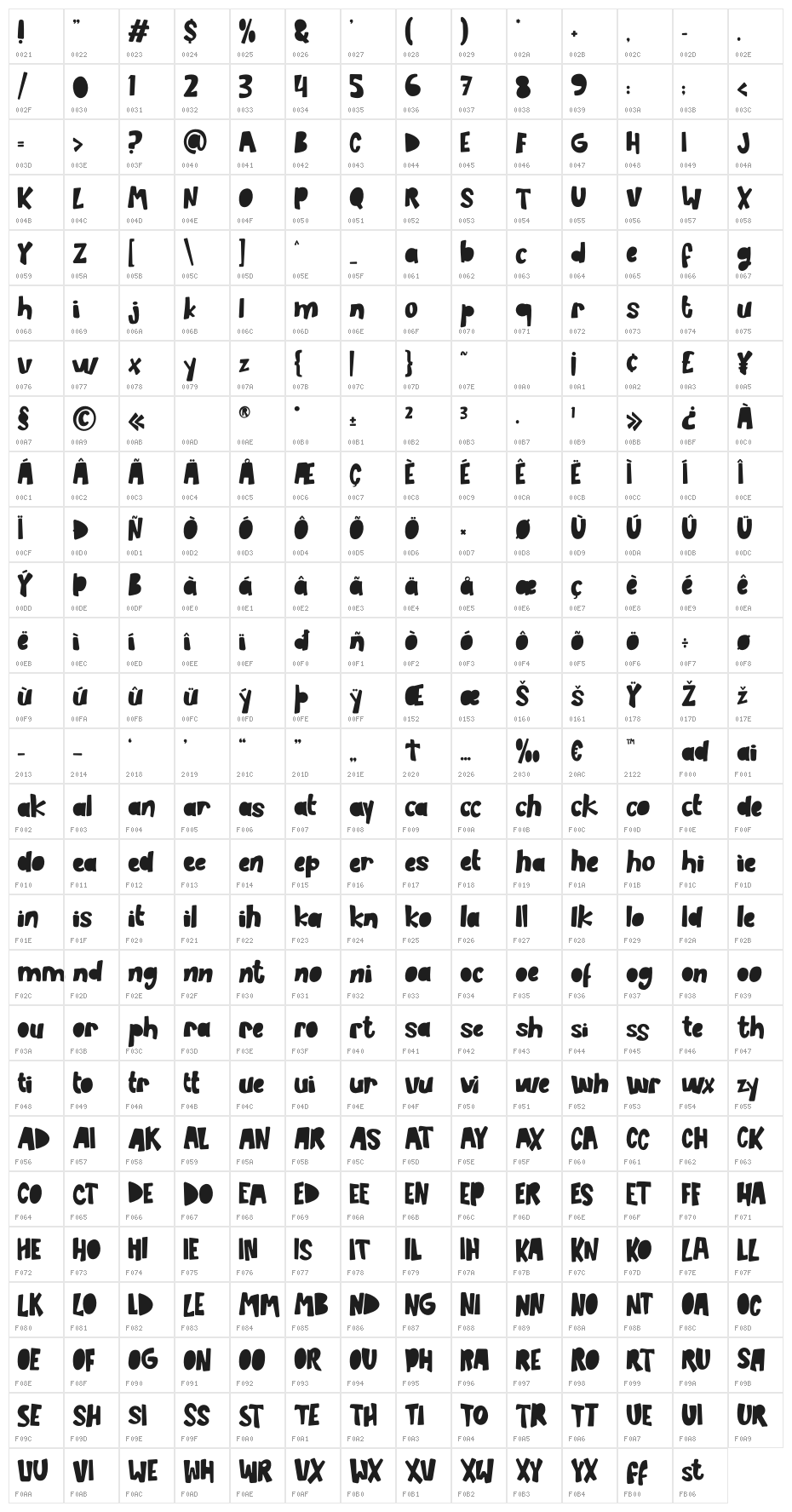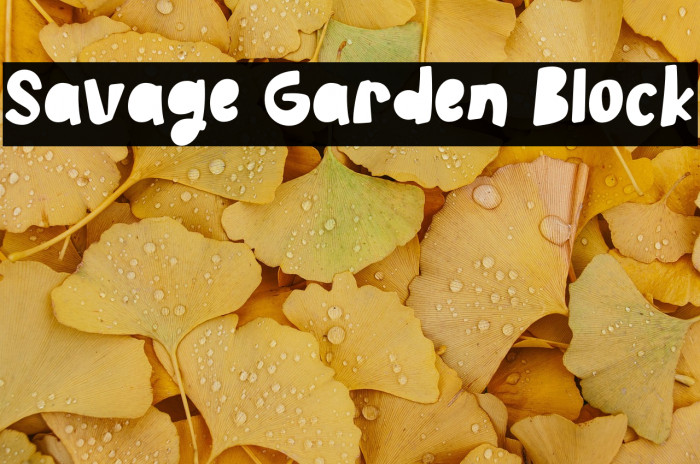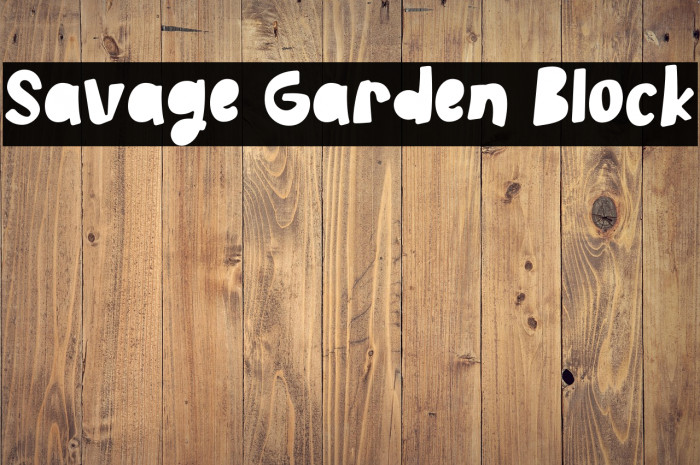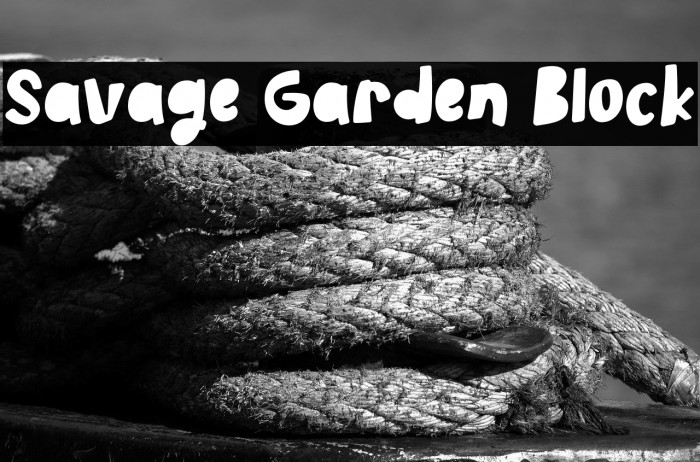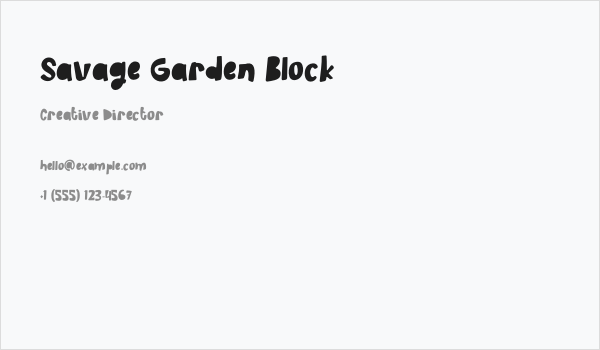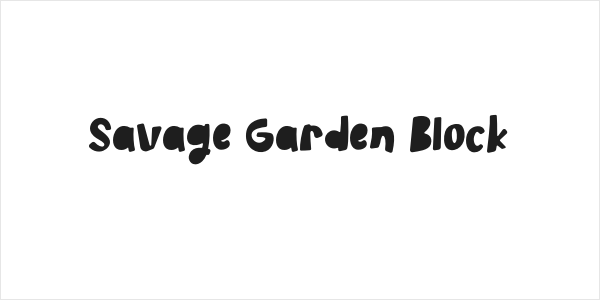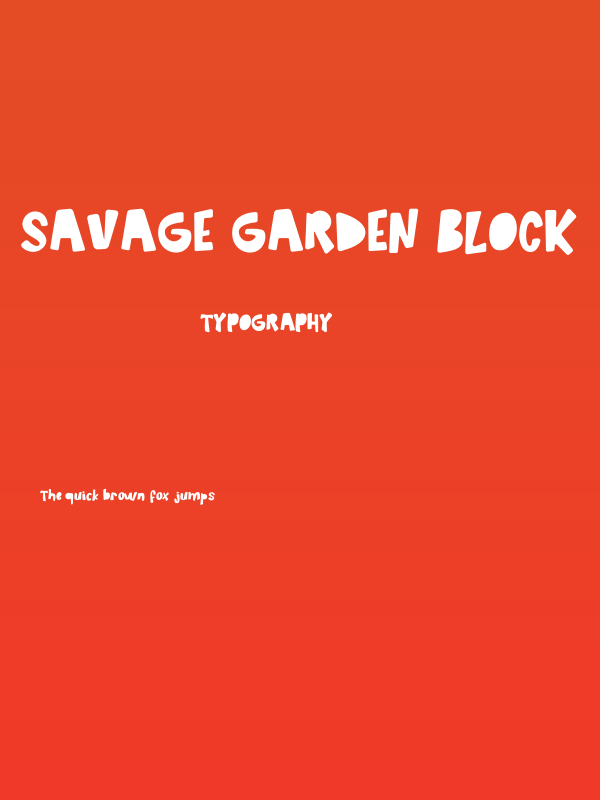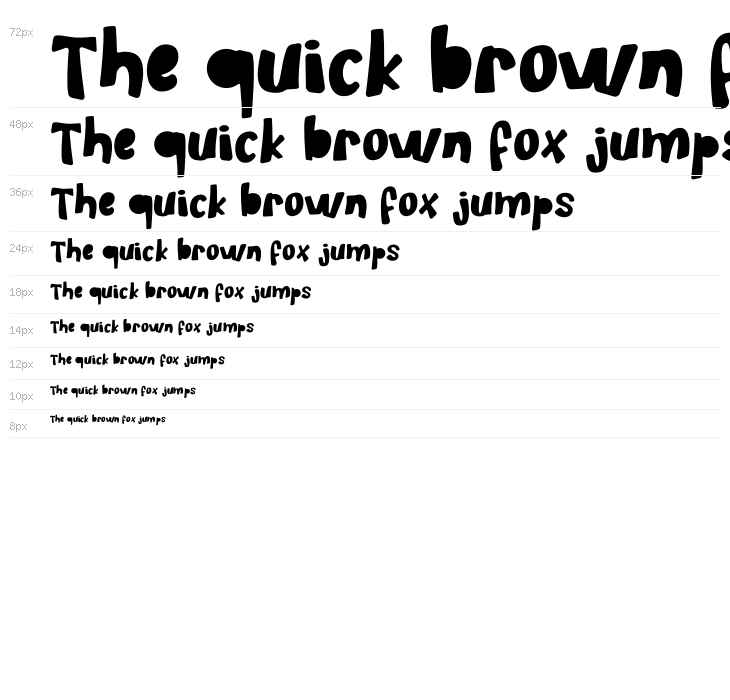
Savage Garden Block Font
Savage Garden Block Description
This font features a bold and playful design with a hand-drawn aesthetic. The characters are thick and rounded, giving a sense of whimsy and fun. The uppercase and lowercase letters maintain a consistent style, with exaggerated curves and a slightly irregular baseline that adds to its charm. The numbers and special characters follow the same playful theme, making it suitable for creative and informal projects. The overall look is bold and eye-catching, perfect for grabbing attention.
| Proposed Projects | Ideal for children's books, playful branding, posters, and creative invitations. |